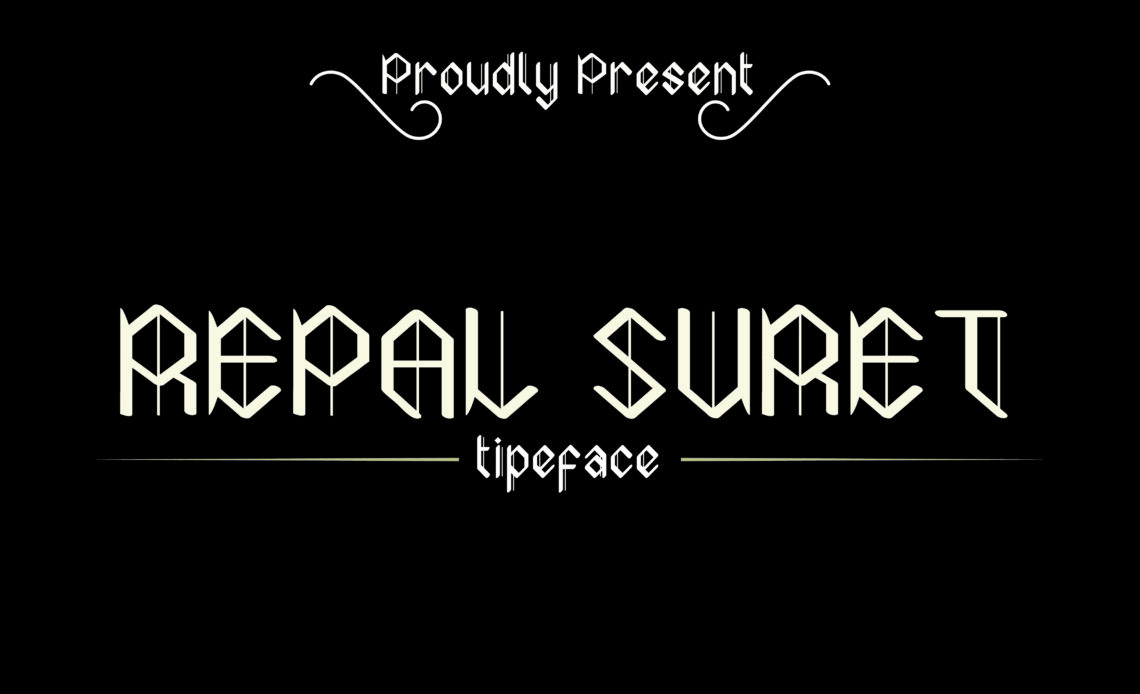
Step into the Realm of Elegance with Repal Suret: A Blackletter Font Steeped in History
In a world saturated with digital monotony, Repal Suret emerges as a beacon of timeless sophistication, a blackletter font that evokes the charm of bygone eras. Its strokes, reminiscent of ancient manuscripts, transport you to a realm of elegance and intrigue.
With Repal Suret as your creative ally, you can craft designs that radiate a sense of heritage and distinction. Whether you're designing logos, posters, invitations, or social media graphics, this font will elevate your work to new heights of artistry.
Repal Suret's inherent beauty lies in its intricate details, each letter meticulously crafted to exude a touch of old-world grandeur. The curves and flourishes dance across the page, captivating the eye and igniting the imagination.
Journey through the annals of history with Repal Suret, a font that captures the essence of classicism. Its blackletter style, rooted in medieval manuscripts, adds a touch of mystery and intrigue to any design.
Be it a vintage-inspired logo, a captivating poster, or an enchanting invitation, Repal Suret weaves a tapestry of elegance and sophistication. Its dark themes evoke a sense of nostalgia, while its modern interpretation ensures it remains relevant and impactful in today's digital landscape.
Harness the power of Repal Suret to create designs that resonate with your audience. Its timeless appeal transcends fleeting trends, ensuring your creations remain captivating for years to come. Let this font be your muse, inspiring you to craft visual masterpieces that transport your audience to a world of enchantment and wonder.